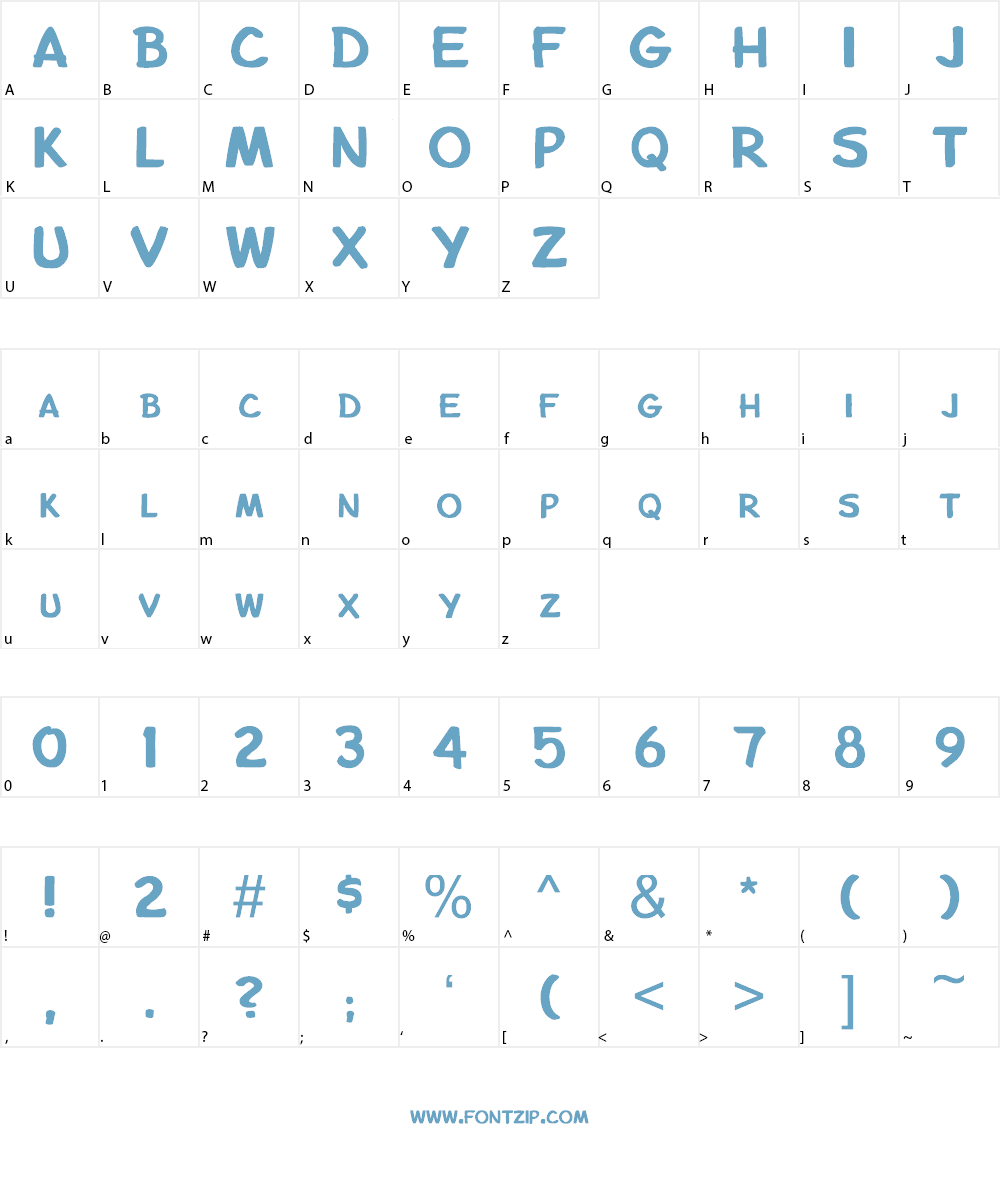
The SmallCaps in this one is really small compared to the Upper Case. I made this font for a project that needed comments on the side to be much smaller but not have to jump around with changing fonts sizes constantly within the item.